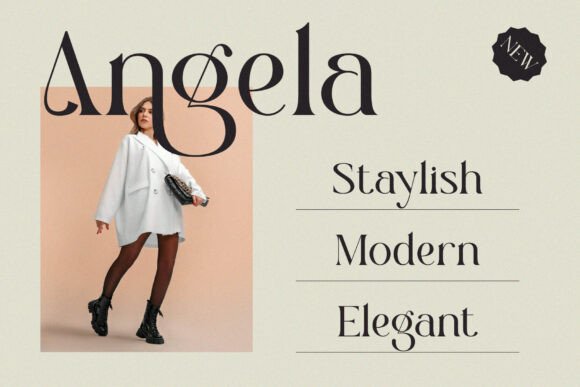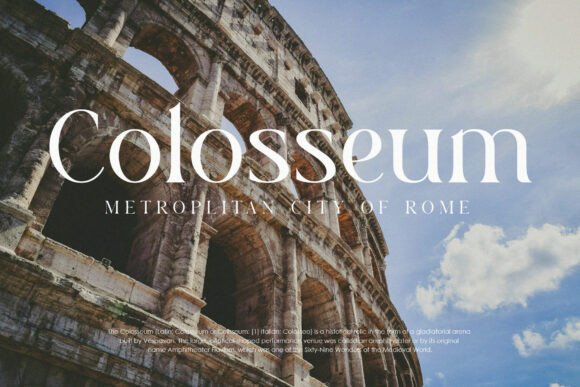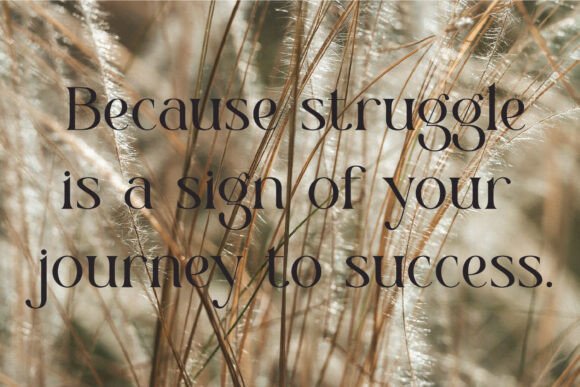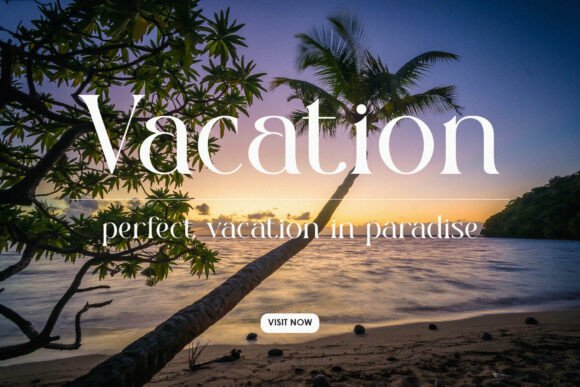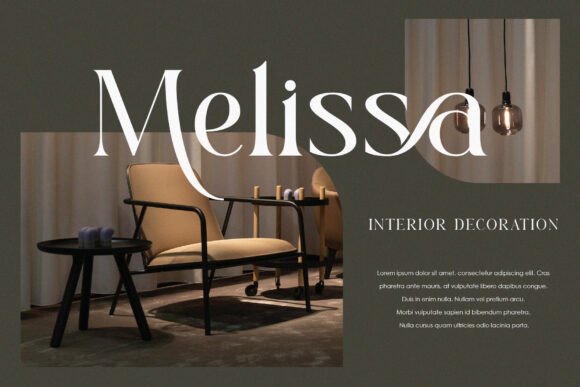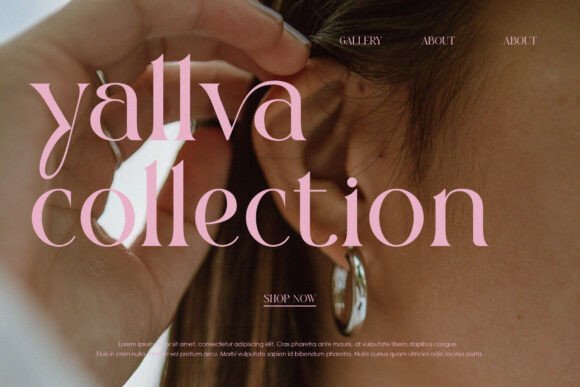
Introduction to Sivana Font
As a designer, you’ve likely experienced that moment when a single font choice can elevate your entire creative project. For me, it was the discovery of the Sivana Font, a modern serif font that harmonizes classical elegance with whimsical, flowing curves. Its unique combination of high-contrast letterforms and dramatic swashes instantly captured my attention.
What I love about Sivana Font is its ability to add a touch of sophistication and romance to any design. Whether you’re working on a boutique cosmetic label, high-end floral design, or ethereal social media header, this font delivers a sense of handcrafted prestige and effortless beauty. As a valuable design resource, Sivana Font offers a generous collection of custom ligatures and stylistic alternates, allowing you to experiment with various styles and moods.
Key Features of Sivana Font
- High-quality, professional font perfect for creative projects, including logos, branding, and design resources.
- Unique, elegant design with a transparent background, allowing for seamless integration with any design element.
- Designed to be highly legible, with clear and distinct letterforms that make it perfect for body text and headings.
- Part of a larger font family, offering a range of styles and weights to suit different design needs and creative projects.
Honest Review: Sivana Font
I recently stumbled upon the Sivana Font, and I must say it’s been a great addition to my design resource arsenal. This font is perfect for any creative project that requires a touch of elegance and sophistication.
Here are some of the things that I love about the Sivana Font:
- ✨ High-quality design that’s sure to impress: The Sivana Font is beautifully crafted, with clean lines and a professional look that’s hard to match.
- ⚠️ Limited character set: The Sivana Font has a limited character set, which may not be suitable for projects that require a wide range of characters.
- ⚠️ Not ideal for bold text: The font may not be the best choice for projects that require bold or heavy text, as it can look a bit light.
Overall, I’m really impressed with the Sivana Font. It’s a high-quality design resource that’s perfect for a variety of creative projects. While it may have some limitations, it’s definitely worth checking out, especially for those on a budget or looking for a free download.
Tips for Getting the Most Out of Sivana Font
Use the Sivana Font on a transparent background to create a clean and modern design. Experiment with different font sizes and styles to add visual interest to your design.
The Sivana Font is perfect for designing business cards, social media graphics, and marketing materials. It’s also great for creating logos and branding elements.